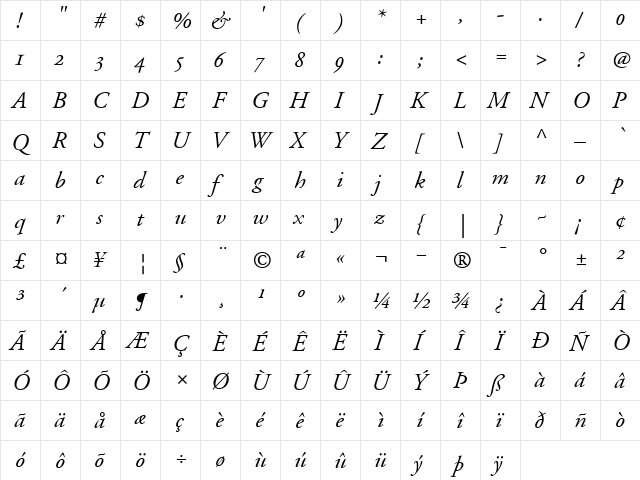
AdobeGaramondOldstyleFigures RomanItalic
Design Context for AdobeGaramondOldstyleFigures Typeface
AdobeGaramondOldstyleFigures brings classic typographic sensibility to the table — its serifs and measured letterforms reflect centuries of print heritage. The slanted form adds forward momentum and visual energy.
Pro Tip: Set AdobeGaramondOldstyleFigures with slightly loose tracking in headlines to let each letterform's detail read clearly at display sizes.